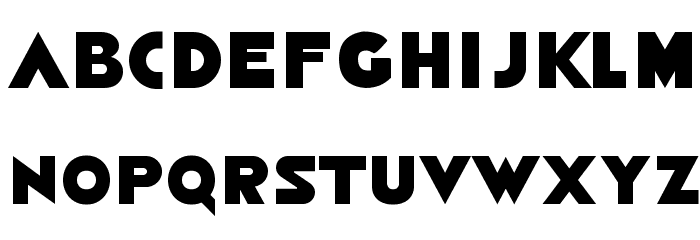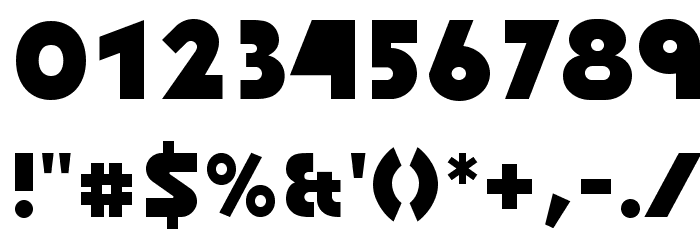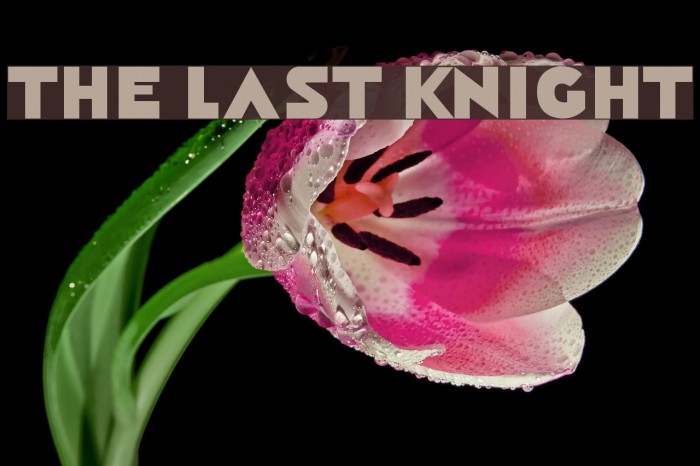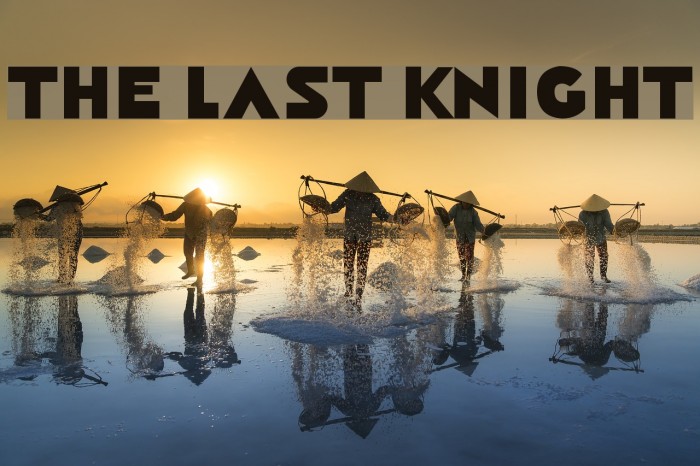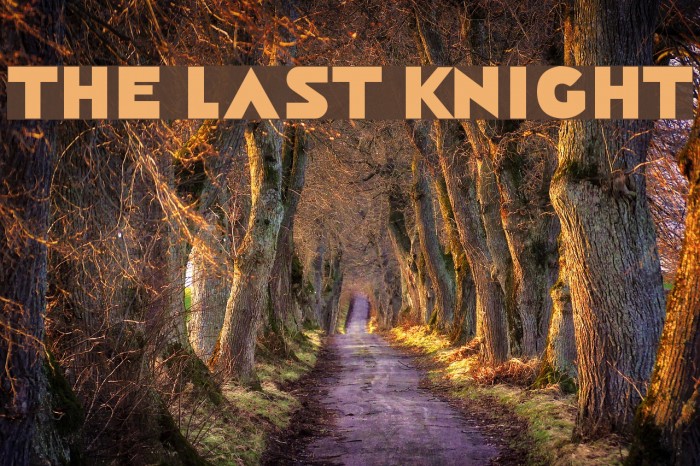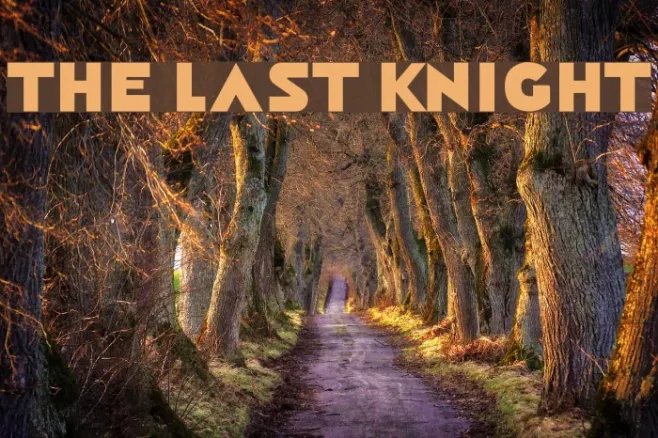
The Last Knight Font
This font features bold, geometric letterforms with a strong presence. The characters are constructed with sharp angles and a uniform stroke width, giving it a modern and assertive appearance. The uppercase letters are particularly striking, with a consistent height and width that create a cohesive look. The numbers and special characters maintain the same boldness, ensuring readability and impact. This font is well-suited for projects that require a strong visual statement, such as branding, posters, and headlines.
A bold, geometric font with sharp angles and uniform stroke width.
- Proposed Projects: Ideal for branding, posters, headlines, and any design needing a strong visual impact.